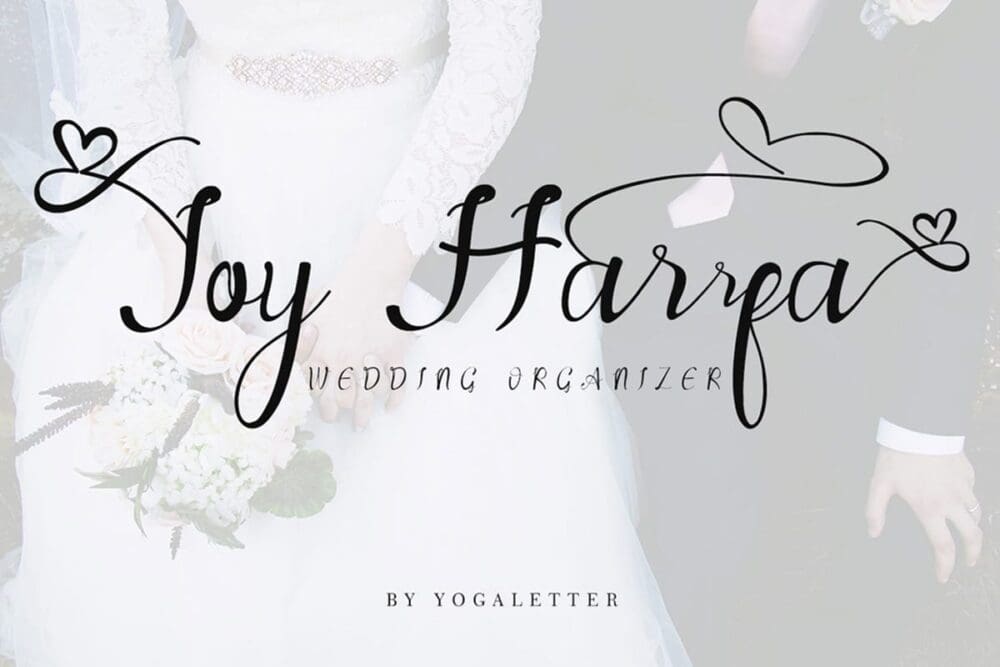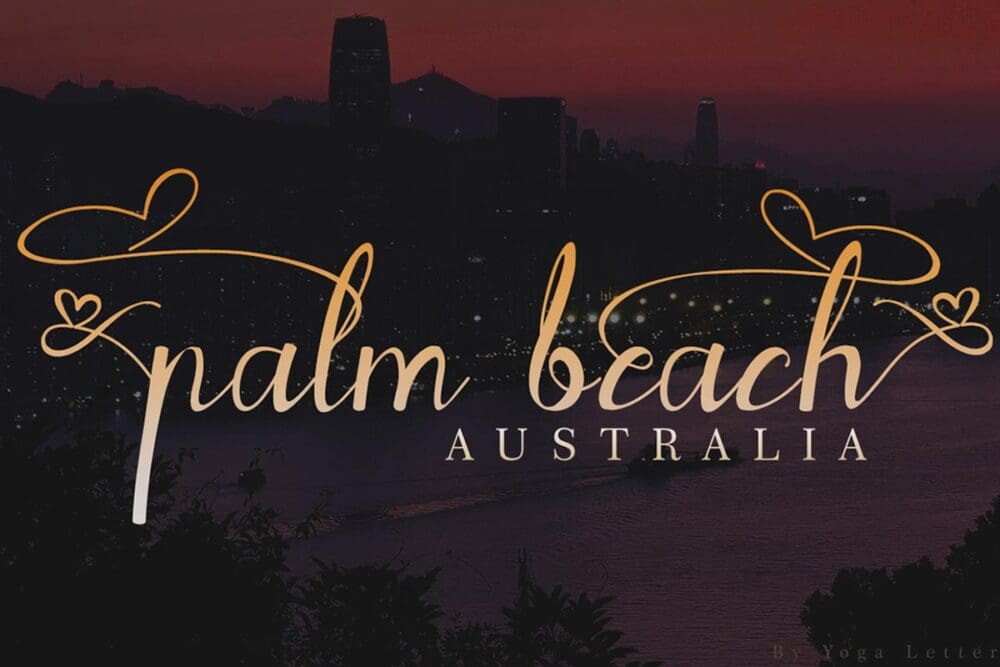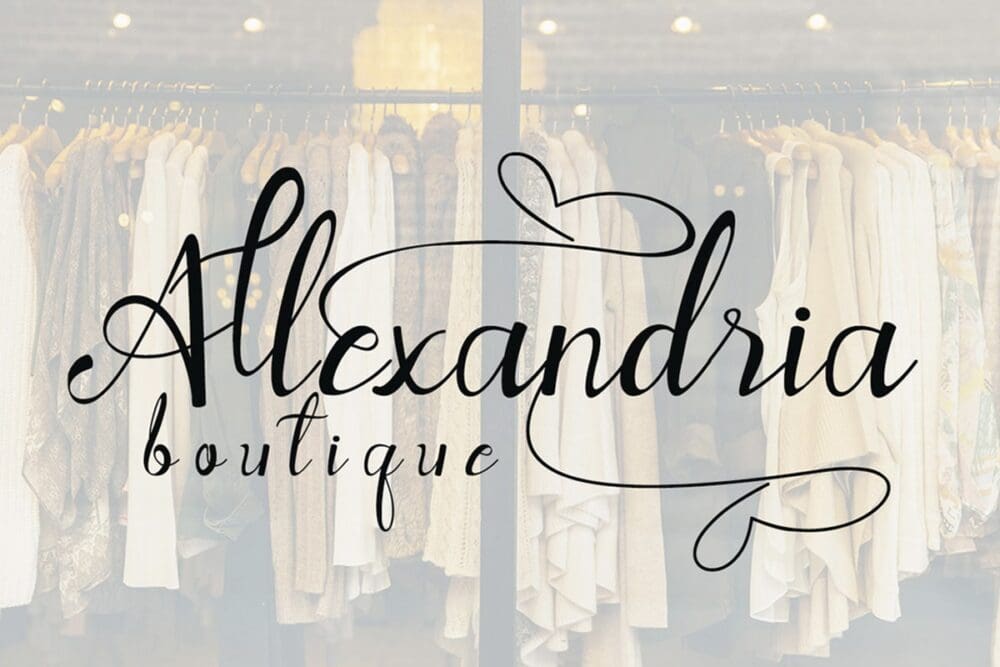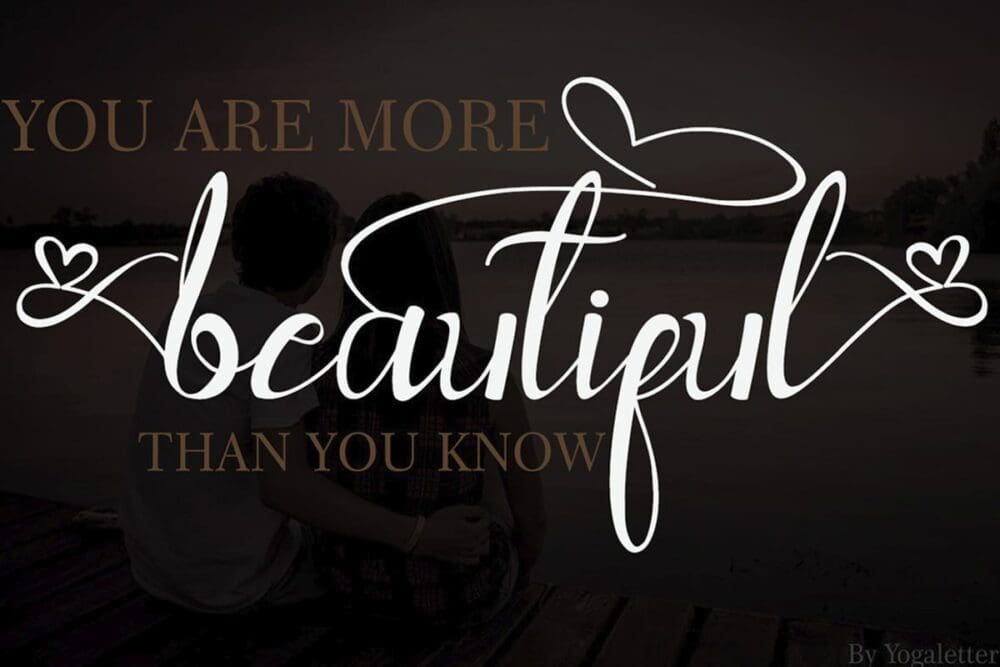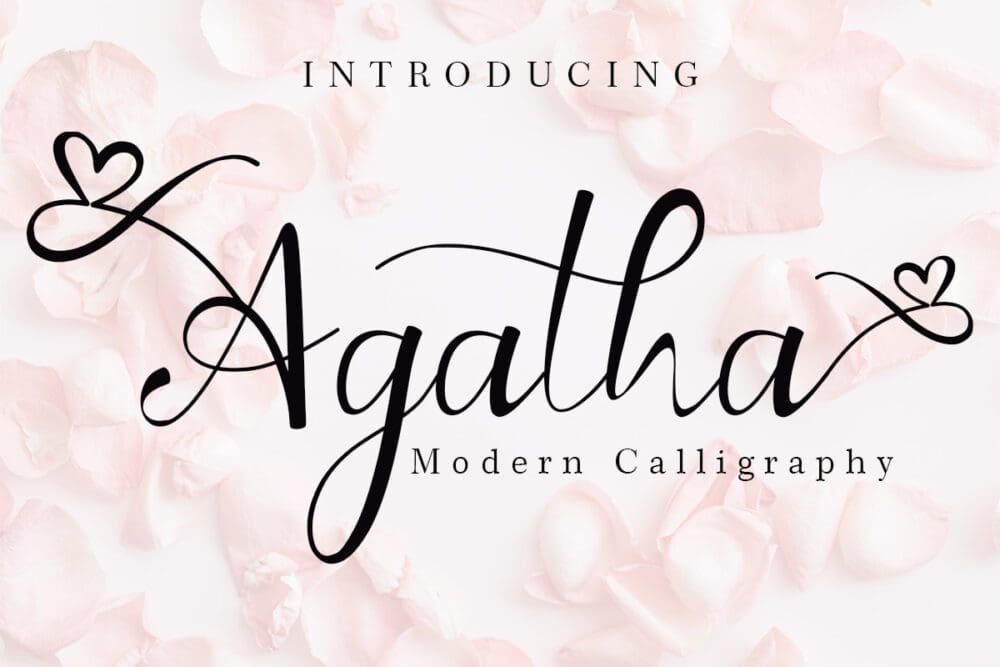
Agatha Font
Agatha is a beautiful and elegant calligraphy font. It looks lovely on wedding invitations, thank you cards, quotes, greeting cards, logos, business cards and every other design which needs a handwritten touch.